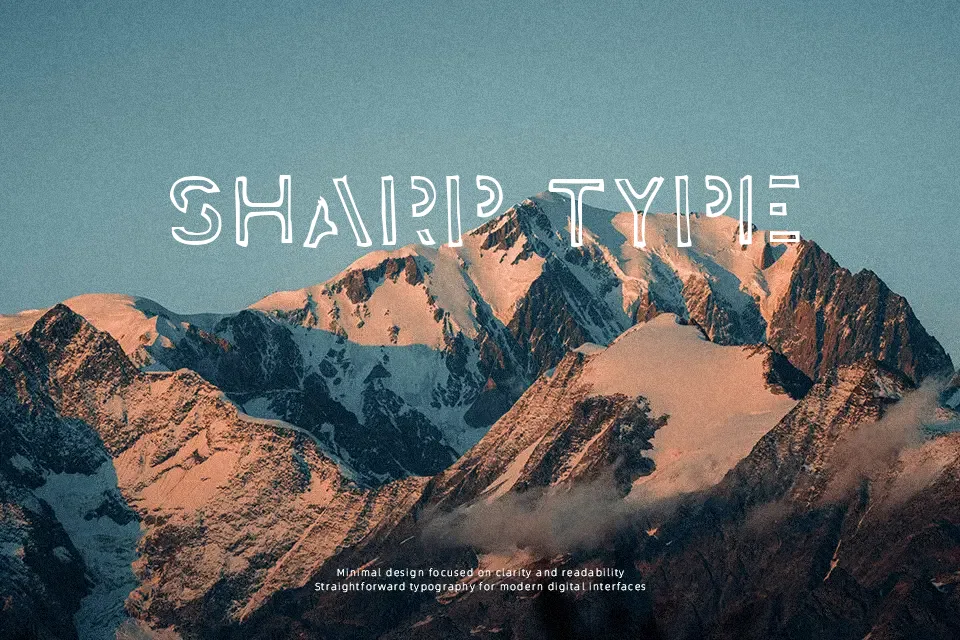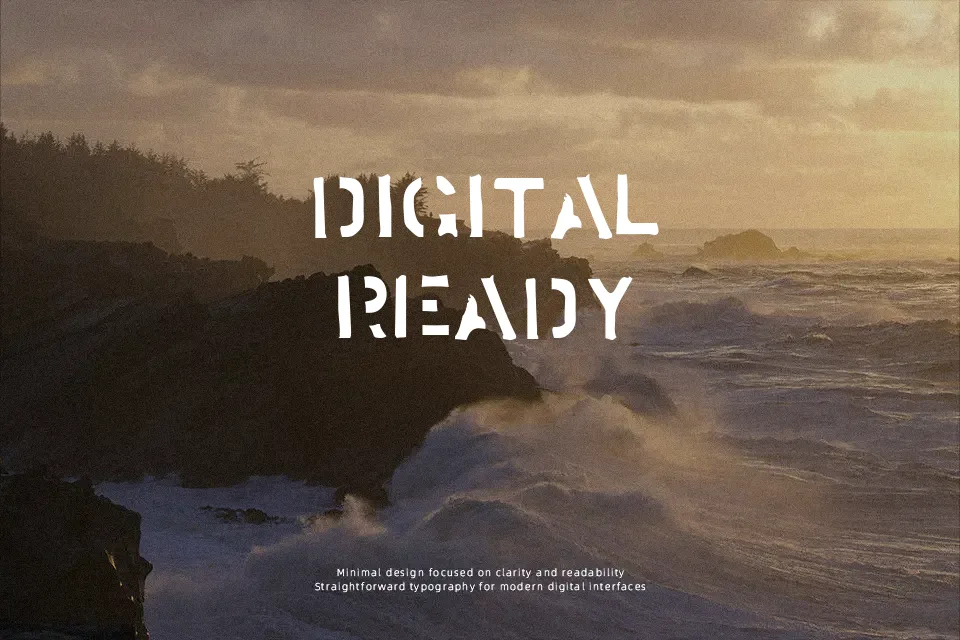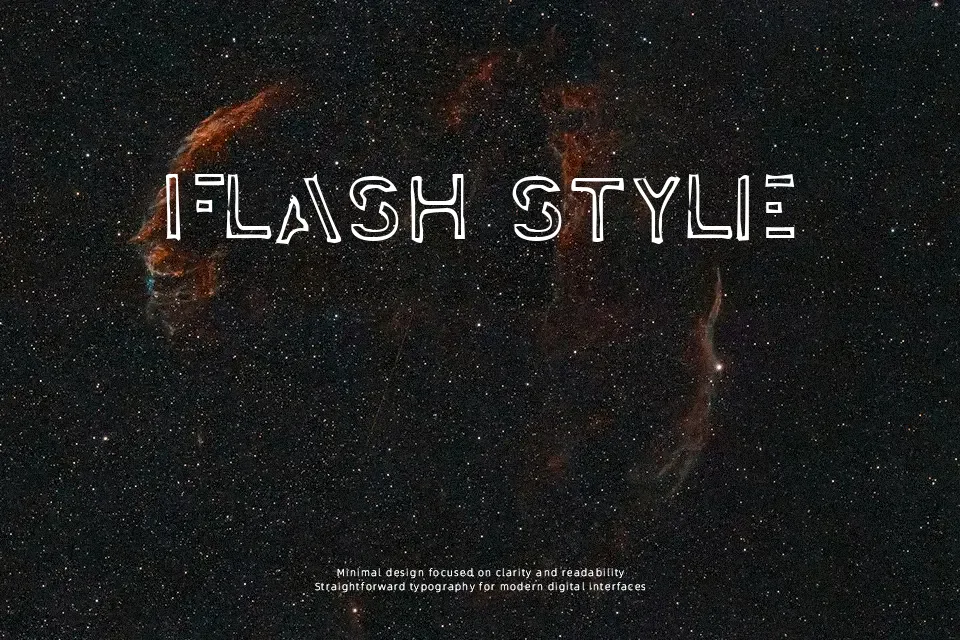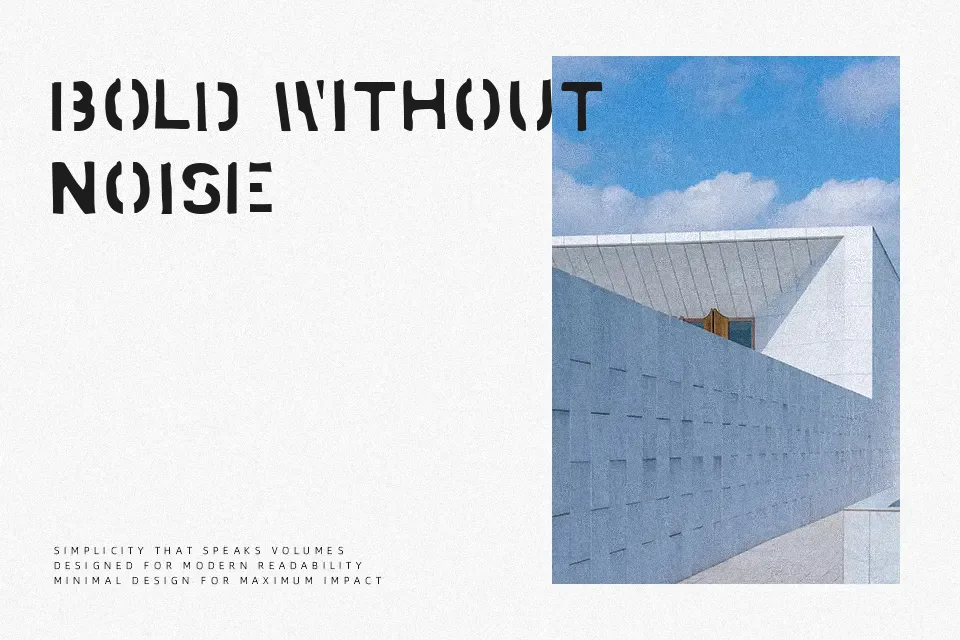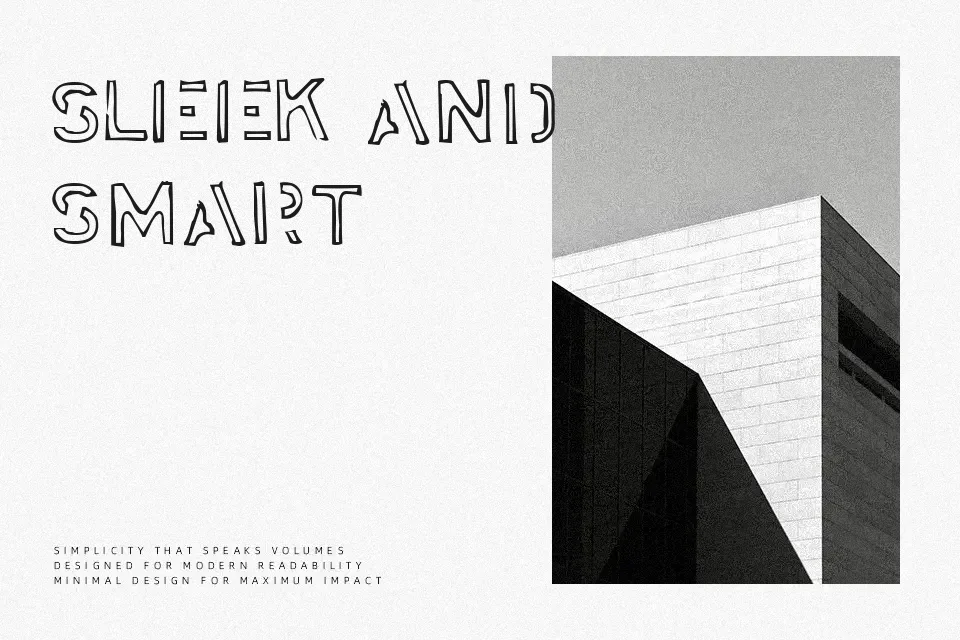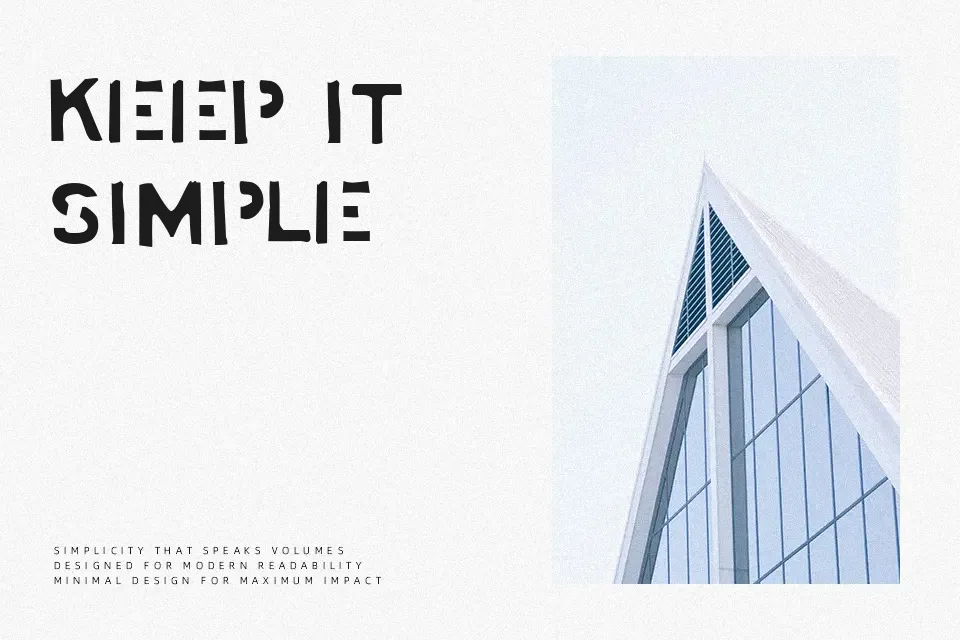
Stockstill Font
Stockstill Font is a heavy stencil display typeface featuring segmented strokes, angular contours, and generous stroke thickness. The letterforms incorporate wide cutout gaps that define the classic utility aesthetic without sacrificing baseline consistency. While the balanced tracking and strong silhouettes ensure unmistakable legibility across headline compositions, urban apparel graphics, and packaging labels, the fragmented stencil construction becomes difficult to parse when scaled down to smaller sizes. The dense visual rhythm provides striking graphic punch in short display titles, but the interrupted letter shapes reduce comfort significantly across continuous body copy and multi-line paragraph layouts.
military-themed poster headlines
industrial product packaging
urban apparel graphics
esports and gaming titles
continuous paragraph text
small user interface labels
formal business correspondence
Perfect for branding, gaming, and headline, with a bold and display style.